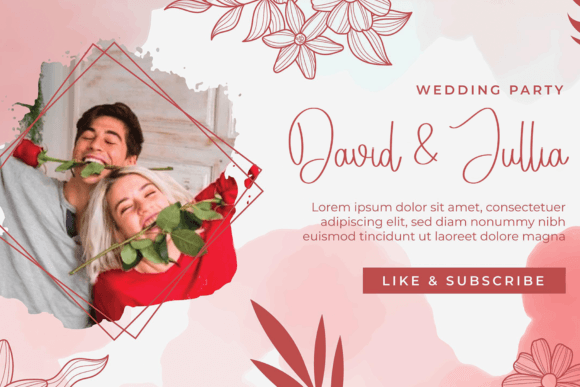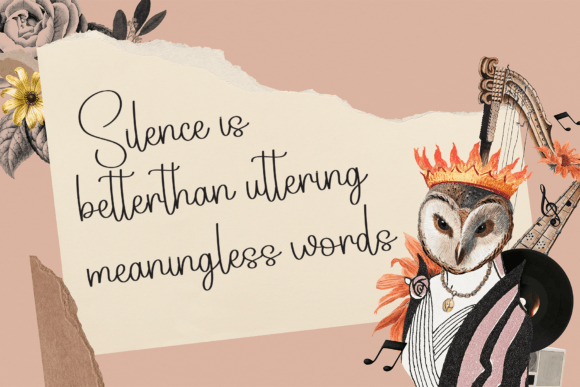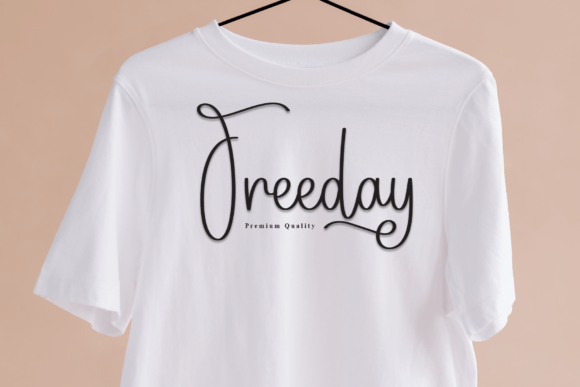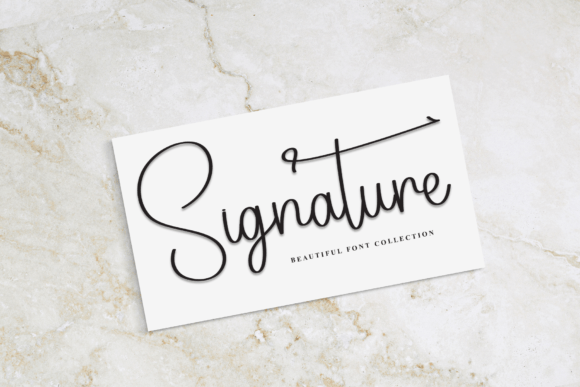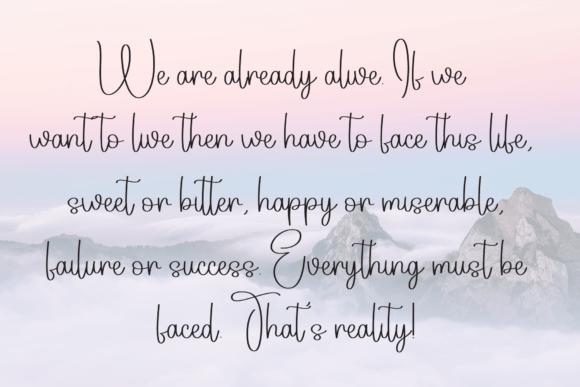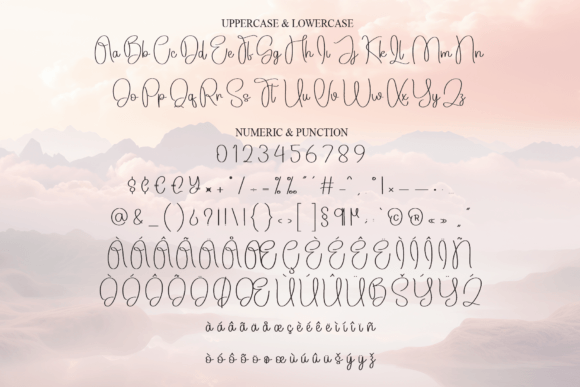
Fantasy Font: Elevate Your Designs with Elegance and Whimsy
Are you a designer or crafter looking for a font that can add a touch of magic to your creations? Look no further than Fantasy Font, a beautiful handwritten script font that’s perfect for designing elegant and modern invitations, announcements, and event materials. With its unique blend of sophistication and playfulness, Fantasy Font is sure to make your designs stand out from the crowd.
The Characteristics of Fantasy Font
Fantasy Font is a handwritten script font that boasts a range of characteristics that make it perfect for a variety of design applications. Some of its key features include:
- Elegant and modern aesthetic: Fantasy Font has a sleek and sophisticated look that’s perfect for designers who want to create elegant and modern designs.
- Handwritten script style: The font’s handwritten script style gives it a personal and whimsical touch that’s perfect for adding a touch of personality to your designs.
- High level of legibility: Despite its elegant and cursive style, Fantasy Font remains highly legible, making it perfect for use in body text and other applications where readability is key.
Uses for Fantasy Font
Fantasy Font is a versatile font that can be used in a wide range of design applications. Some of the most popular uses for the font include:
- Invitations and announcements: Fantasy Font is perfect for designing elegant and modern invitations, announcements, and event materials. Its elegant and cursive style makes it ideal for weddings, baby showers, and other special occasions.
- Event branding: The font’s unique blend of sophistication and playfulness makes it perfect for use in event branding, including logos, signage, and promotional materials.
- Stationery and paper crafts: Fantasy Font is also a popular choice among paper crafters and stationery designers. Its elegant and whimsical style makes it perfect for use in handmade cards, gift tags, and other paper crafts.
Tips for Using Fantasy Font
To get the most out of Fantasy Font, here are a few tips to keep in mind:
- Use it sparingly: While Fantasy Font is a beautiful font, it can be overwhelming if used too much. Use it sparingly to add a touch of elegance and whimsy to your designs.
- Pair it with complementary fonts: Fantasy Font pairs well with a range of fonts, including sans-serif fonts like Arial and Helvetica. Experiment with different font combinations to find the perfect pairing for your design.
- Experiment with different colors and textures: Fantasy Font looks great in a range of colors and textures. Experiment with different colors and textures to add depth and interest to your designs.
Why Choose Fantasy Font?
So why choose Fantasy Font over other fonts? Here are just a few reasons:
- Unique and distinctive style: Fantasy Font has a unique and distinctive style that’s sure to make your designs stand out from the crowd.
- Elegant and modern aesthetic: The font’s elegant and modern aesthetic makes it perfect for designers who want to create sophisticated and stylish designs.
- High level of legibility: Despite its elegant and cursive style, Fantasy Font remains highly legible, making it perfect for use in body text and other applications where readability is key.
In conclusion, Fantasy Font is a beautiful and versatile font that’s perfect for designers and crafters who want to add a touch of magic to their creations. With its elegant and modern aesthetic, handwritten script style, and high level of legibility, Fantasy Font is sure to become a favorite among designers and crafters. Whether you’re designing invitations, announcements, or event materials, or creating handmade cards and paper crafts, Fantasy Font is the perfect choice.